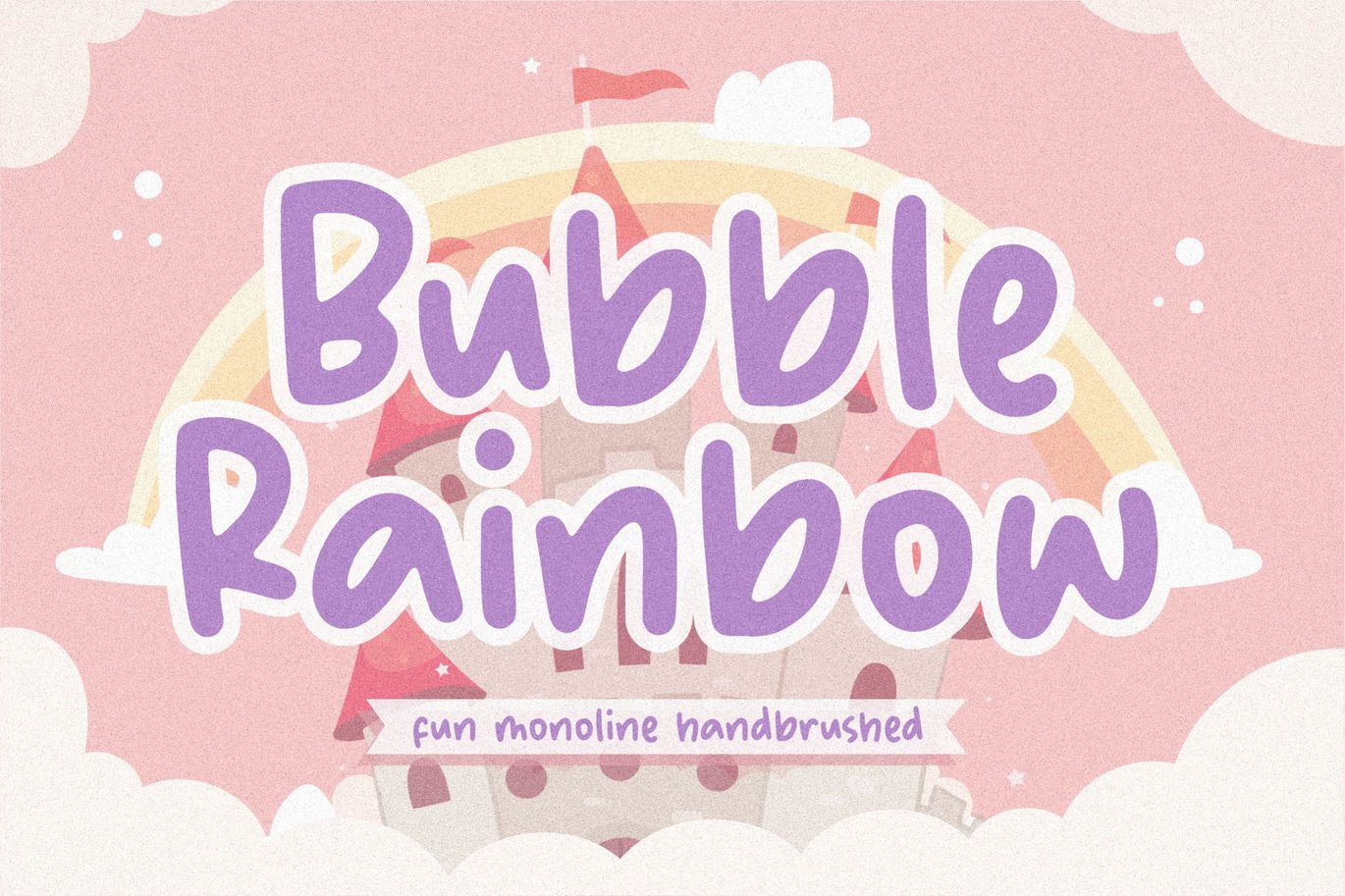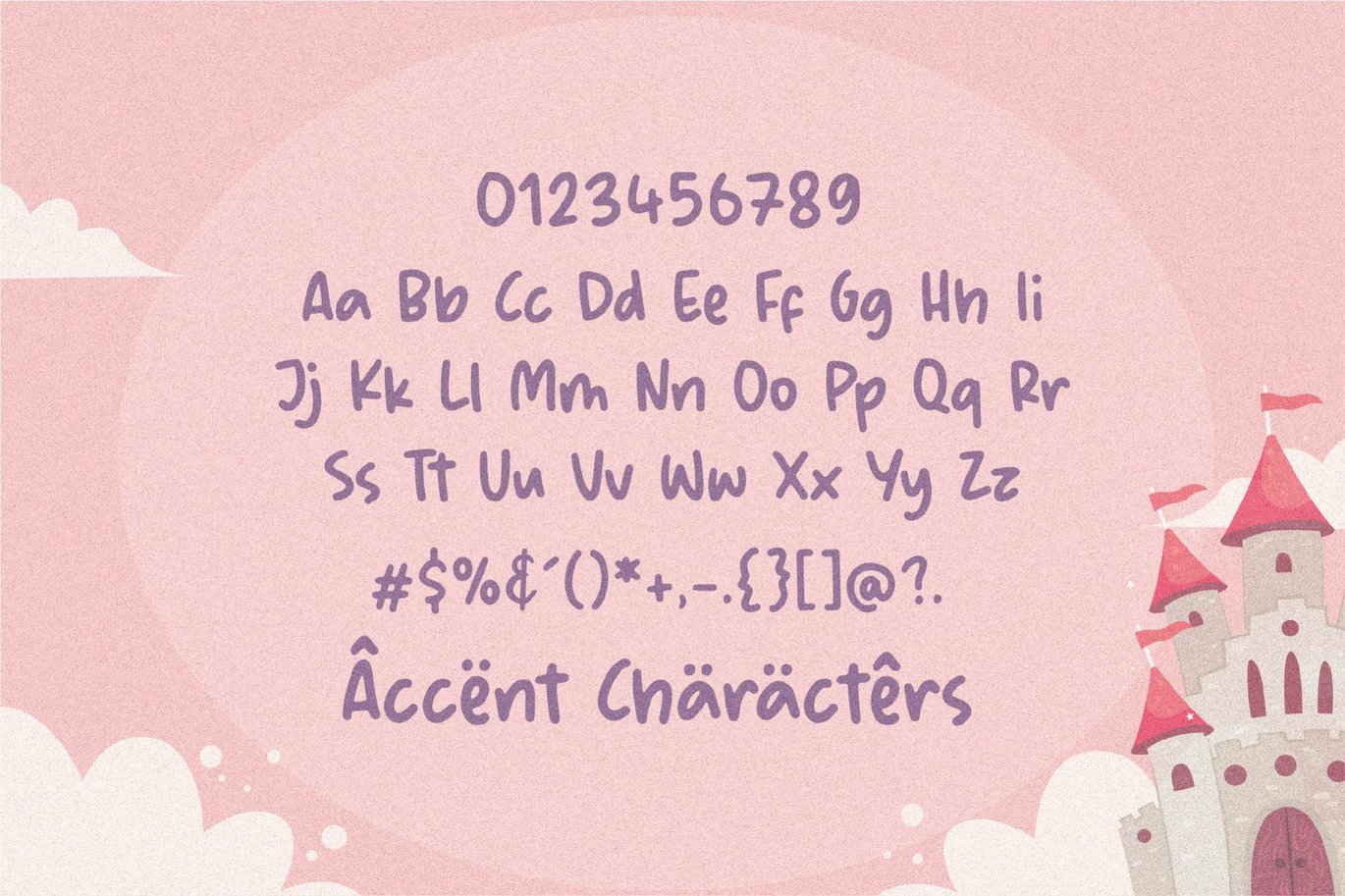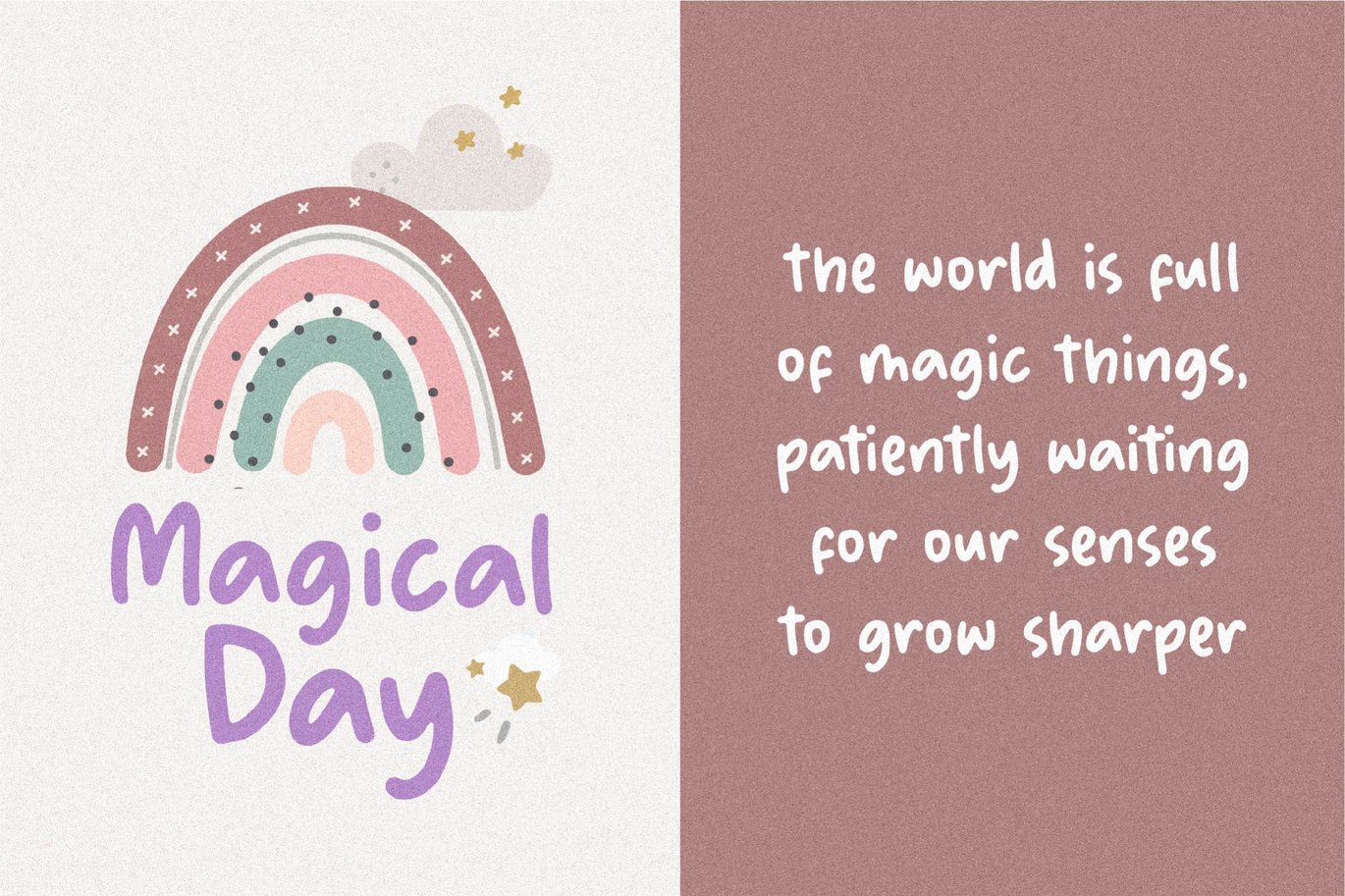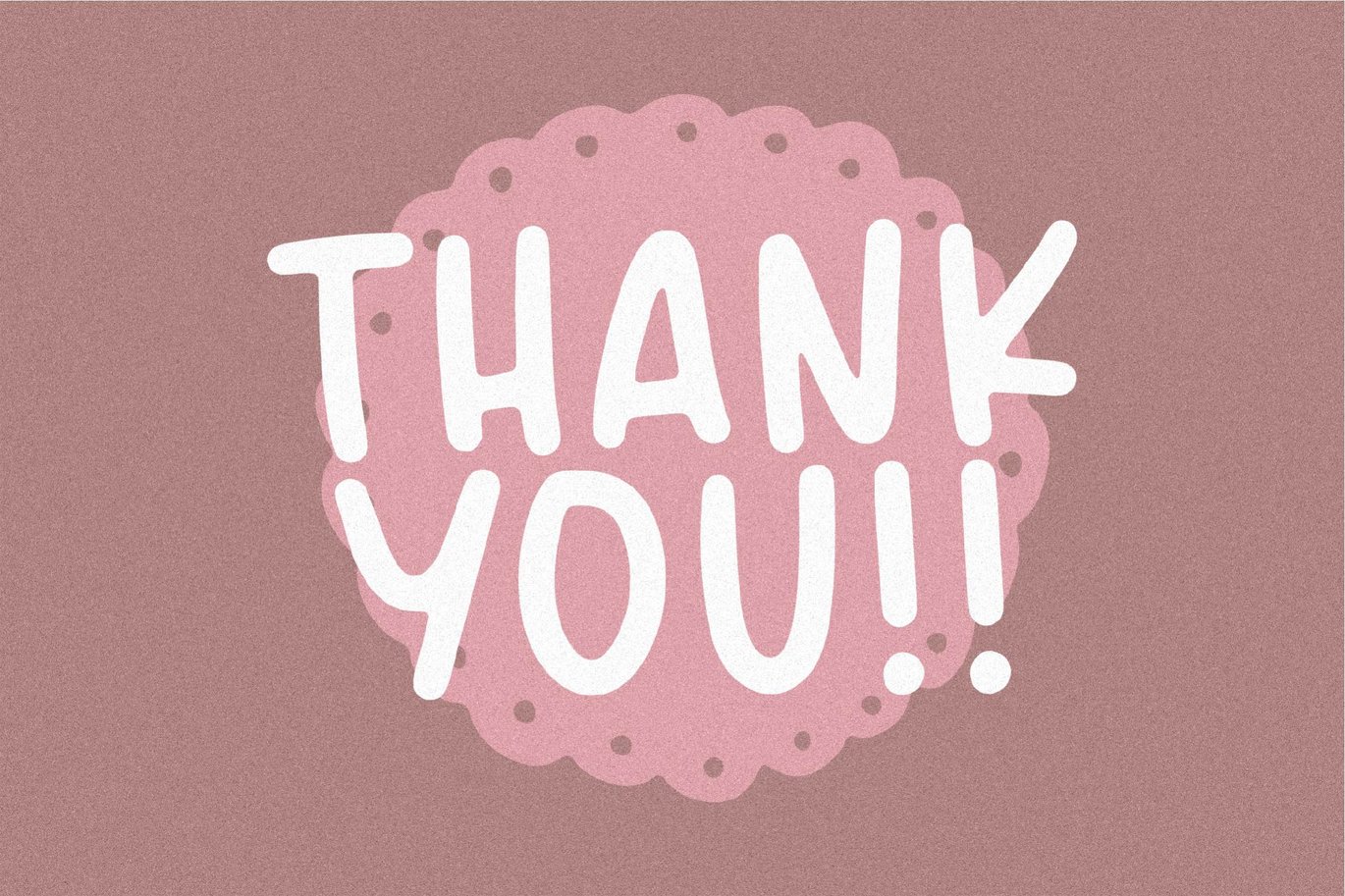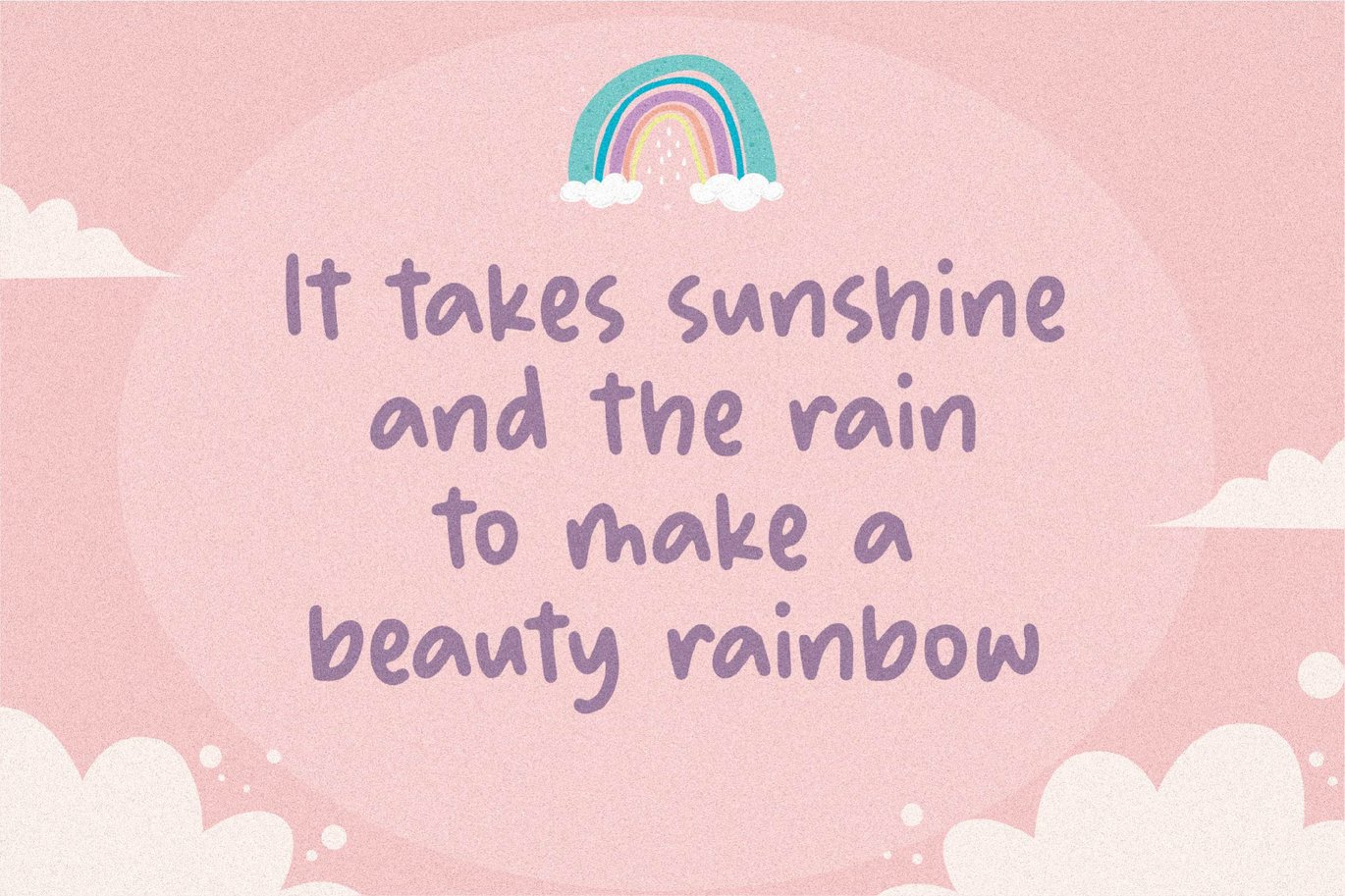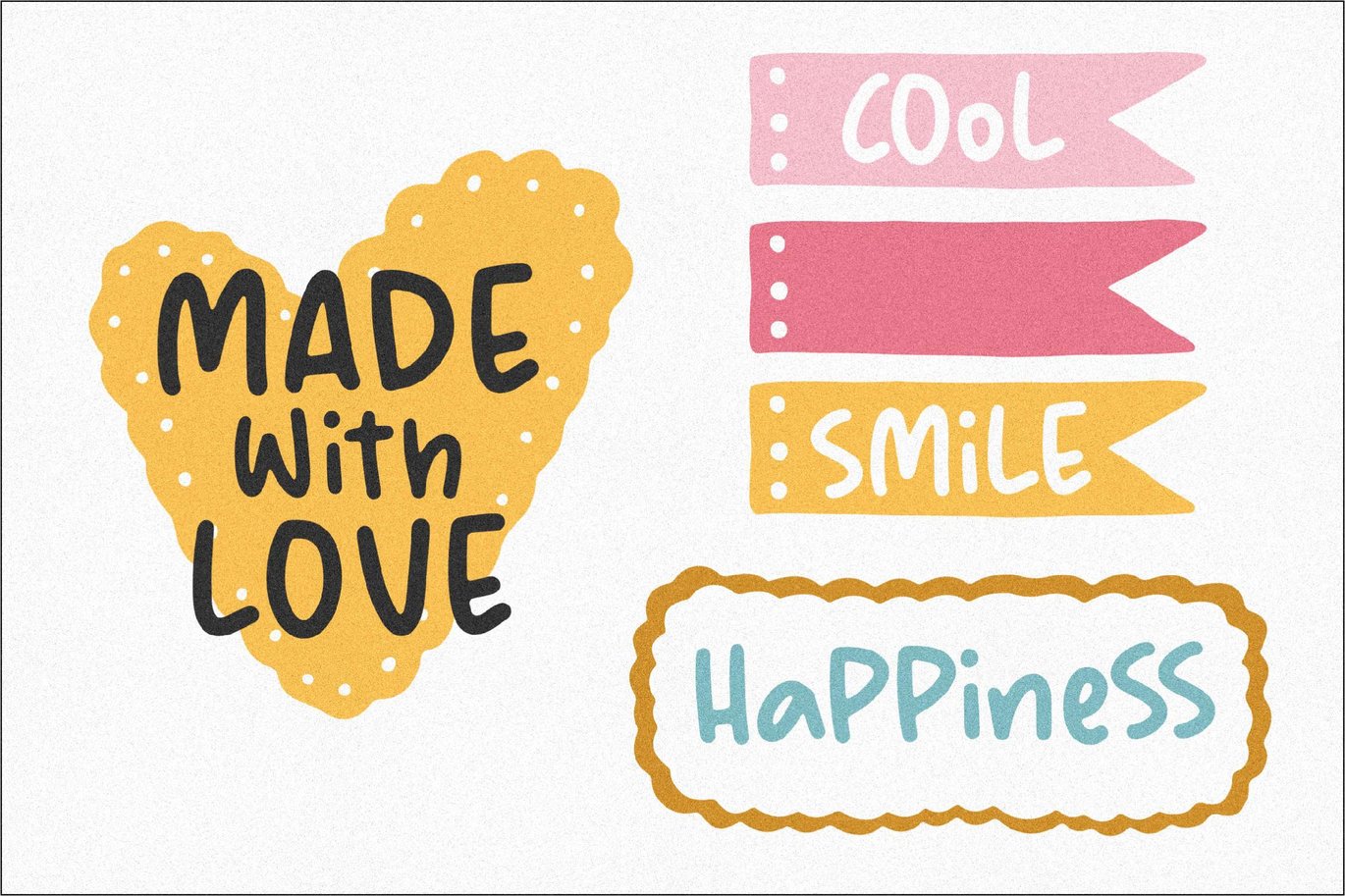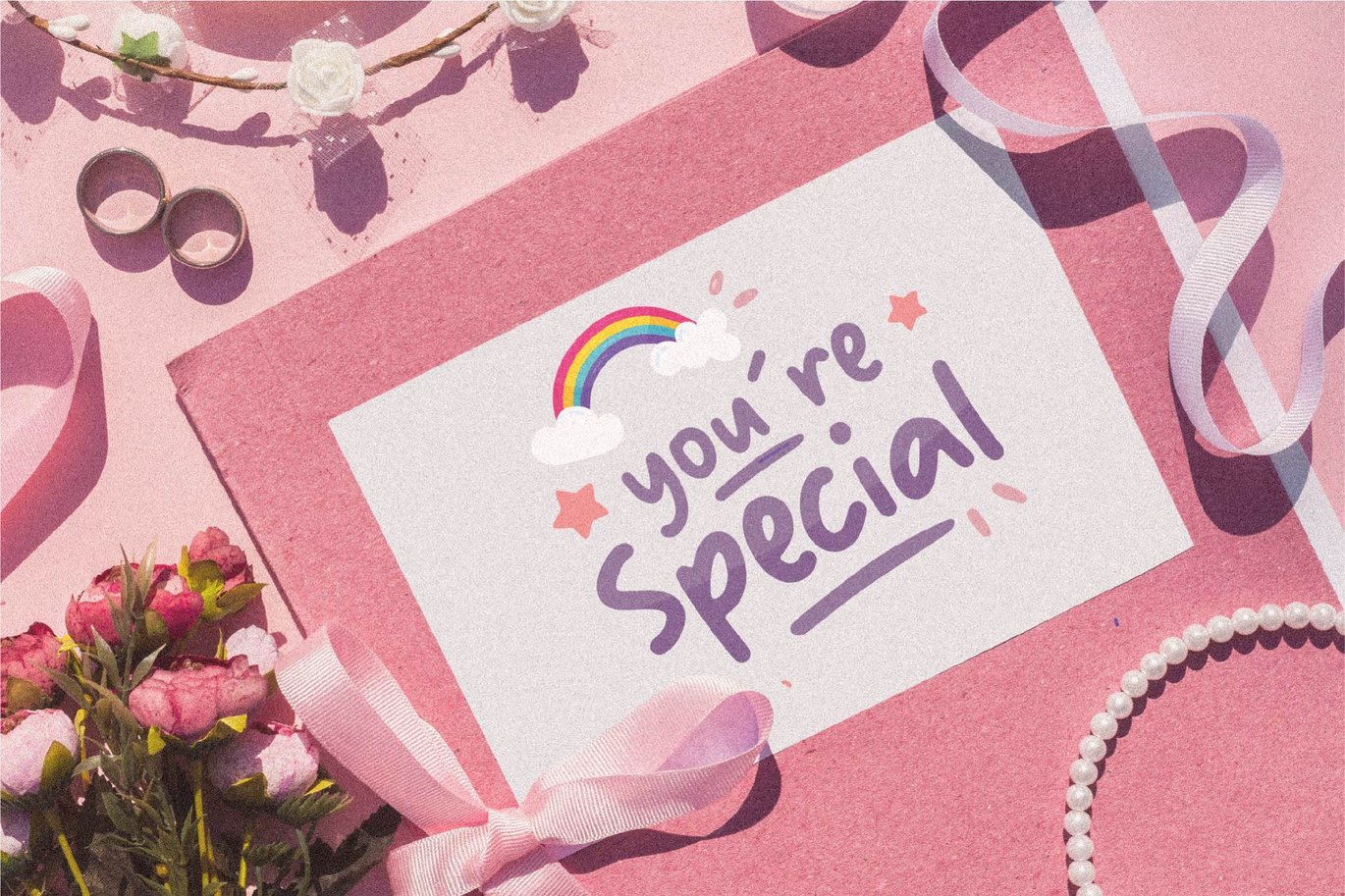
Bubble Rainbow – Handbrushed Logo Font
Introducing by Balpirick Studio.
Proudly Present, Bubble Rainbow Font.
Bubble Rainbow is a Fun Monoline Handbrushed Font.
Bubble Rainbow is perfect for product packaging, branding project, megazine, social media, wedding, or just used to express words above the background.